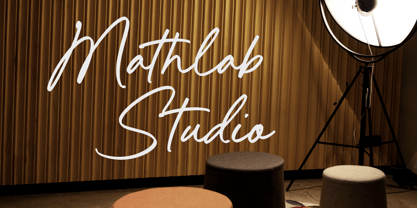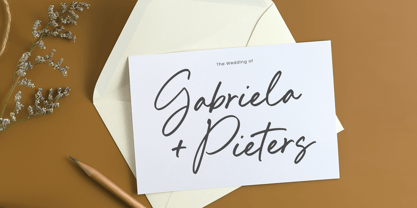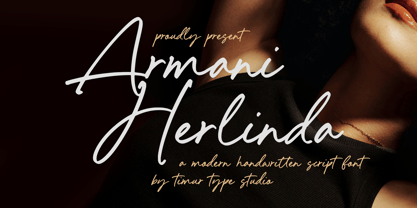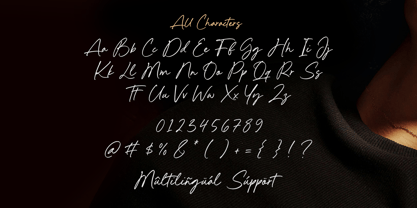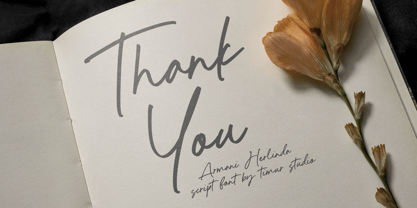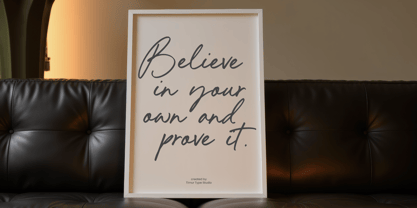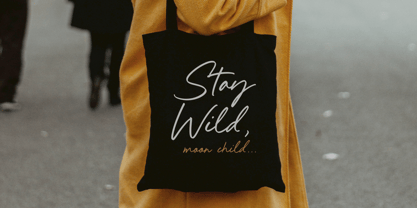
Armani Herlinda
by Timurtype
The Armani Herlinda Font Family was designed by Wara Sigit Tri Pamungkas and published by Timurtype. Armani Herlinda contains 1 styles. More about this family
Armani Herlinda is a Modern Handwritten Script Font
This font is a elegant and stylish modern handwritten script font that features fluid, flowing letterforms with a touch of sophistication. Its smooth curves and natural stroke variation give it a artistic feel, making it perfect for branding, invitations, logos, and other design projects that require a touch of refinement.
Armani Herlinda Font also supports multilingualism